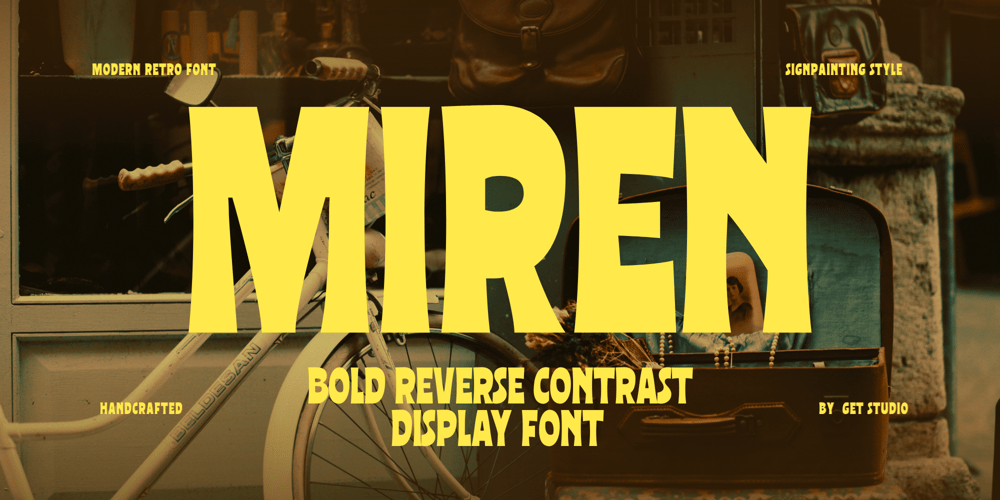
Miren
Miren font
Miren Font Family was designed by Hermansyah and published by Get Studio. Miren contains 1 styles and family package options. Miren is a bold display font with reverse contrast, exuding a strong retro vibe. Its unique style combines striking proportions with vintage charm, making it perfect for standout headlines, branding, and designs that demand attention. These fonts offer a timeless aesthetic that suits a wide range of projects, whether you’re designing for print or digital platforms.